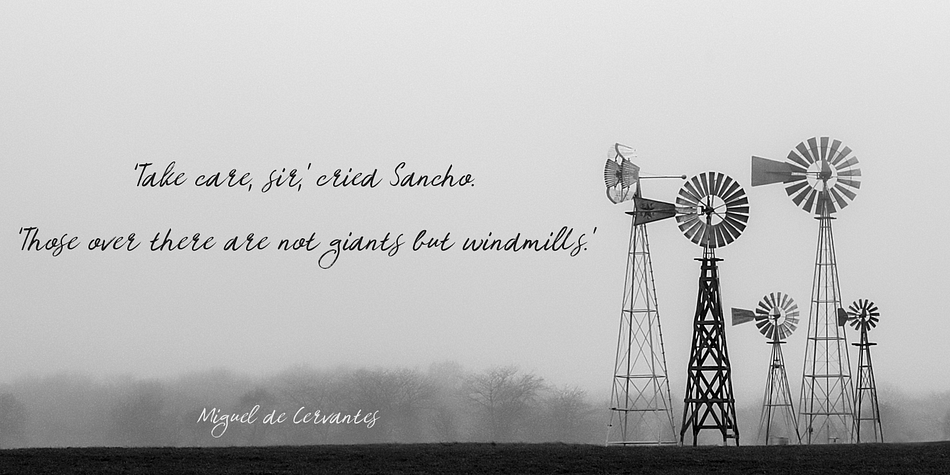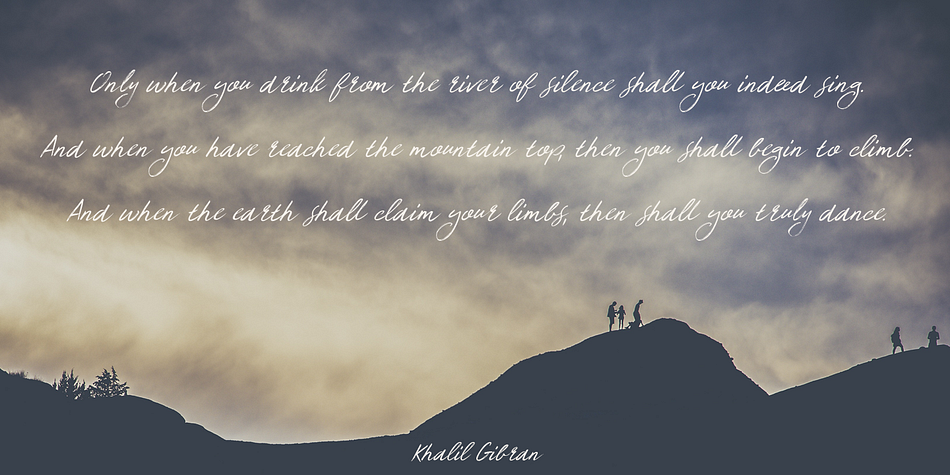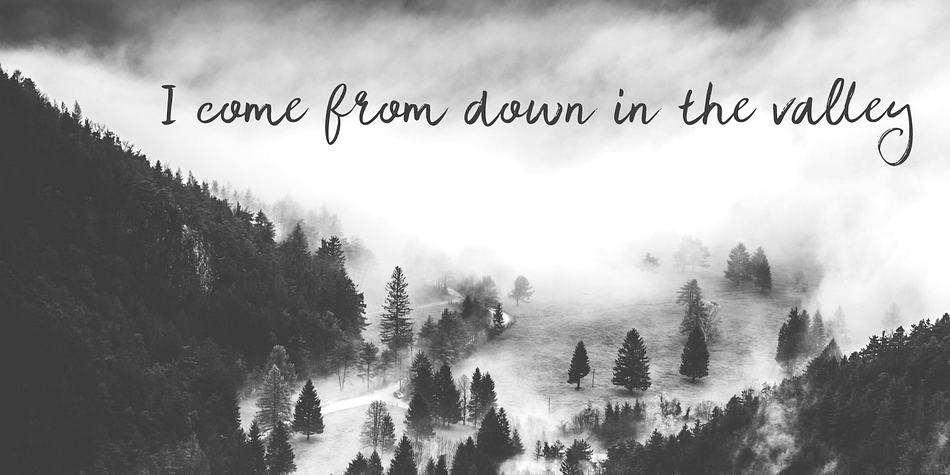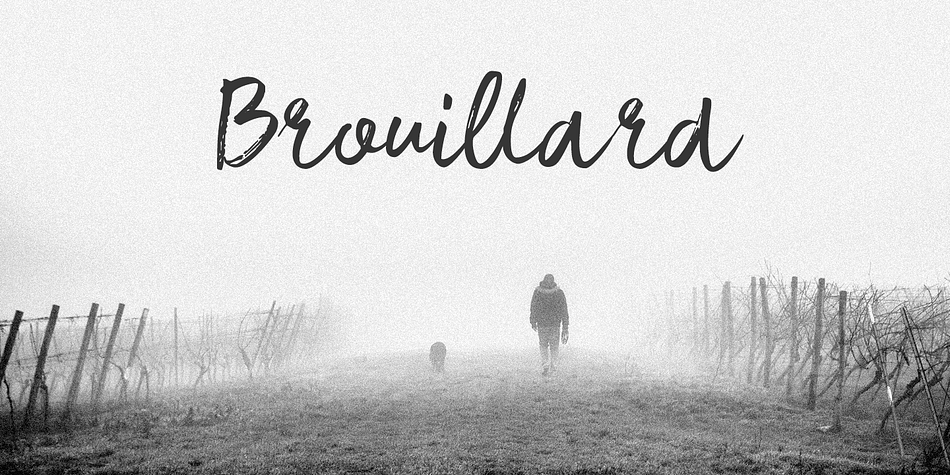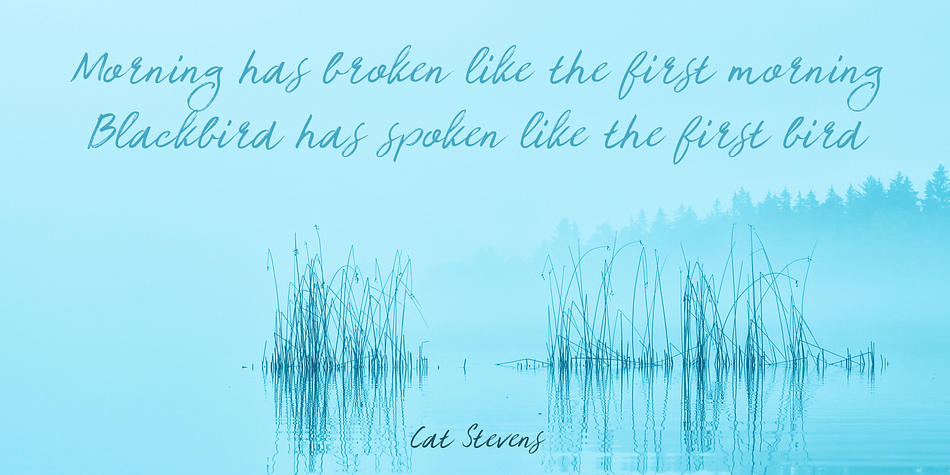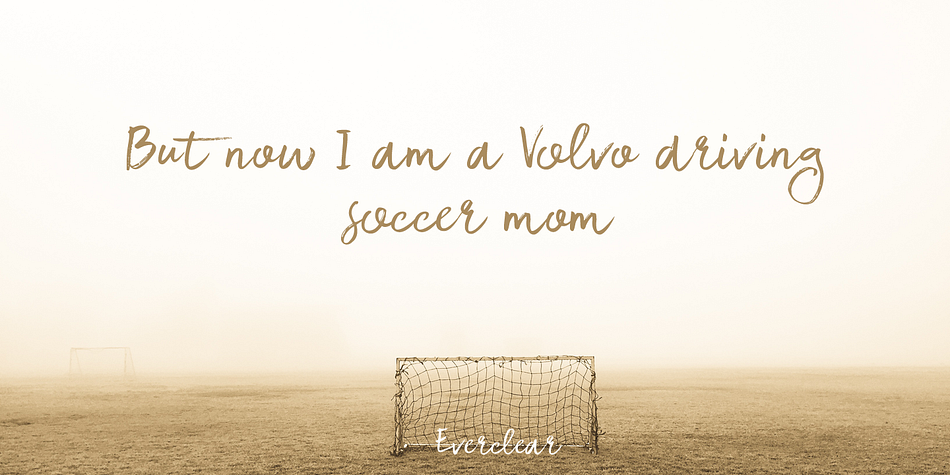
Designed by David Kerkhoff, Brouillard is a script font family. This typeface has three styles and was published by Hanoded.
Brouillard means ‘fog’ in French. I like the ‘oui’ letter combination and I was looking for a name for this font that contained those letters. I found Brouillard and presto: a new font was born!
Brouillard font was handmade with a Japanese pen. It is an elegant, curvy and quite stylish font with a bit of a roughness to it - just enough to catch your attention. All three styles come with a load of diacritics.